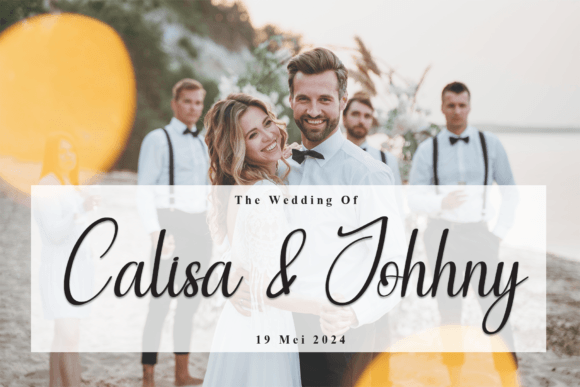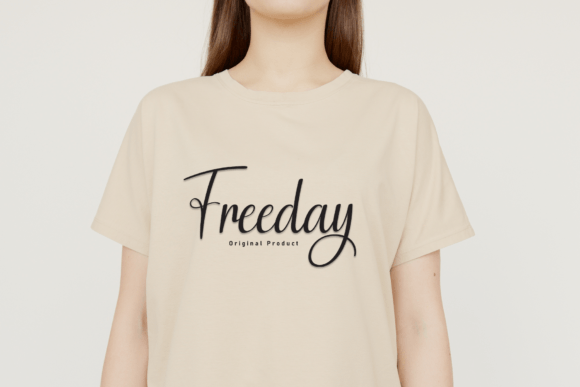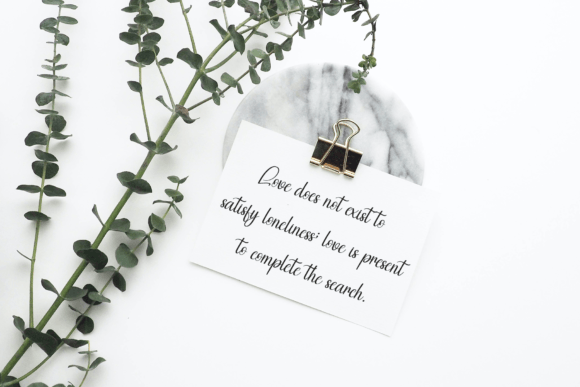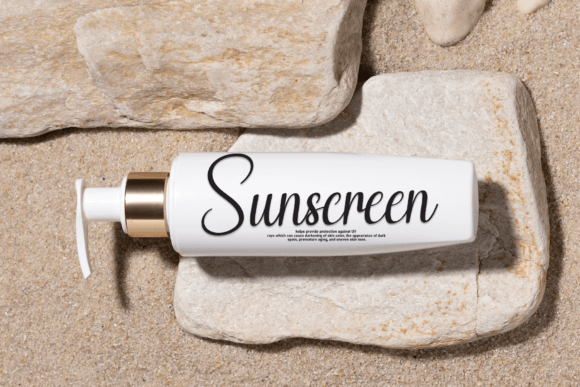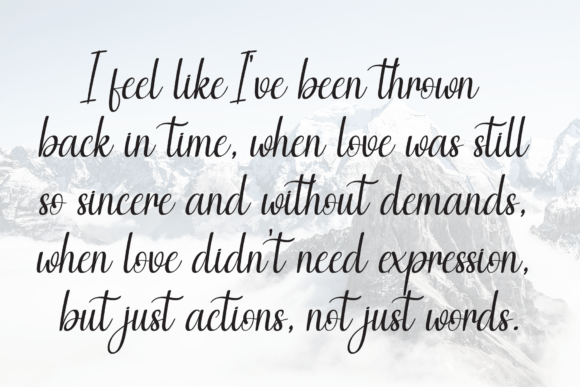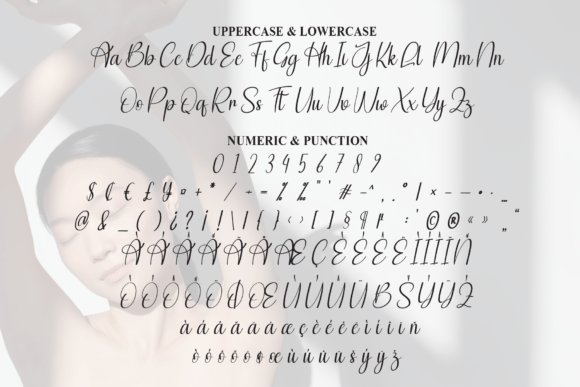
Introducing Body Beauty Font: Elevate Your Designs with Elegance and Personality
In the world of typography, a font can make or break the aesthetic of a design. For those seeking a modern and charming handwritten font that exudes elegance and personality, look no further than Body Beauty Font. This stunning typeface is perfect for upscale invitations, personal branding, and chic editorial designs, offering a refined allure and warmth that will elevate your projects to new heights.
The Characteristics of Body Beauty Font
Body Beauty Font boasts graceful, flowing strokes that dance across the page, imbuing any design with a sense of sophistication and charm. Its modern and elegant character makes it an ideal choice for designers and crafters seeking to add a touch of luxury to their work. Whether you’re creating wedding invitations, fashion editorials, or personal branding materials, this font is sure to impress.
Perfect for Upscale Designs
Body Beauty Font is specifically designed to meet the needs of designers and crafters working on upscale projects. Its refined and elegant appearance makes it perfect for:
- Wedding Invitations: Add a touch of sophistication and romance to your wedding invitations with Body Beauty Font.
- Personal Branding: Elevate your personal brand with a font that exudes elegance and personality.
- Fashion Editorials: Bring a sense of luxury and glamour to your fashion editorials with this stunning handwritten font.
- Chic Editorial Designs: Perfect for creating visually stunning editorial designs that demand attention.
Why Choose Body Beauty Font?
With so many fonts available, why choose Body Beauty Font? Here are just a few reasons why this font stands out from the rest:
- Unique Character: Body Beauty Font has a distinct and charming personality that will set your designs apart.
- Versatility: This font can be used for a wide range of projects, from invitations and editorials to personal branding and more.
- Elegance: Its refined and sophisticated appearance makes it perfect for upscale designs.
- Easy to Read: Despite its elegant appearance, Body Beauty Font remains easy to read, making it perfect for body text and headlines.
Tips for Using Body Beauty Font
To get the most out of Body Beauty Font, here are a few tips to keep in mind:
- Pair with Neutrals: Pair Body Beauty Font with neutral colors like black, white, and gray to let the font take center stage.
- Experiment with Sizes: Don’t be afraid to experiment with different font sizes to create visual interest and hierarchy.
- Add Decorative Elements: Consider adding decorative elements like ribbons, flowers, or other design elements to enhance the font’s elegance.
Body Beauty Font is a stunning handwritten font that offers a perfect blend of elegance, personality, and sophistication. Its modern and charming character makes it perfect for upscale designs, and its versatility ensures it can be used for a wide range of projects. Whether you’re a designer, crafter, or DIY enthusiast, Body Beauty Font is sure to elevate your projects and help you create visually stunning designs that demand attention.